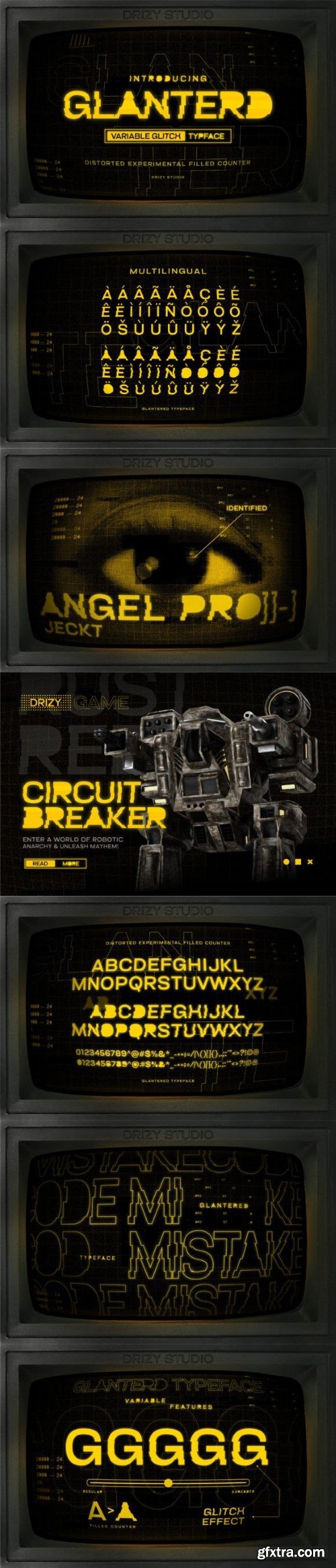
Glanterd is the ideal typeface for challenging the limits of creativity. This glitch font is a unique masterpiece that will inject a sense of disruption and disorder into your designs, making them shine in a world full of sameness.